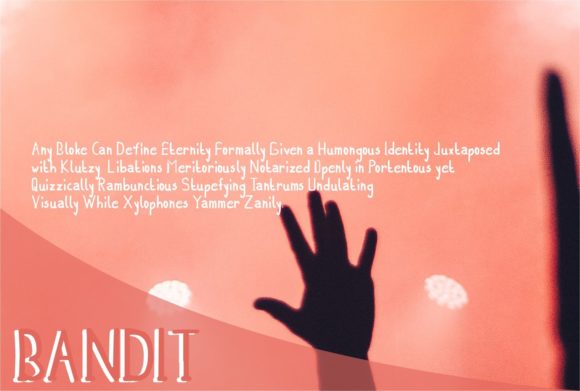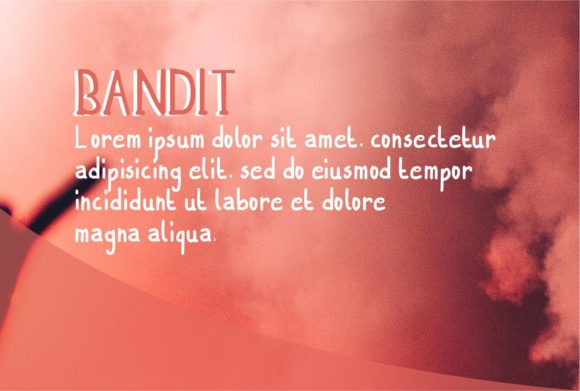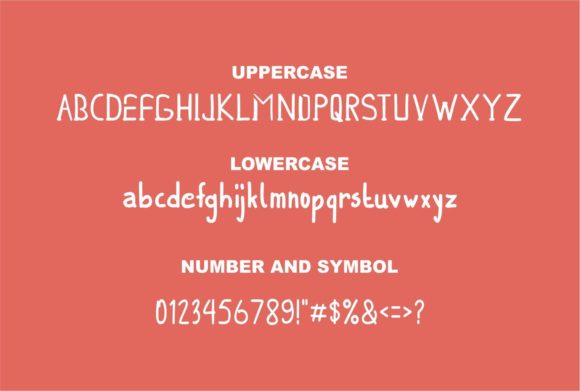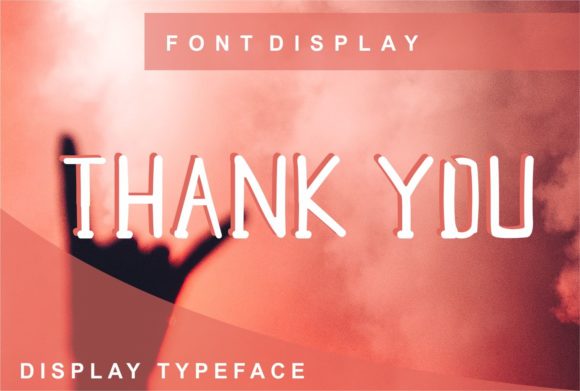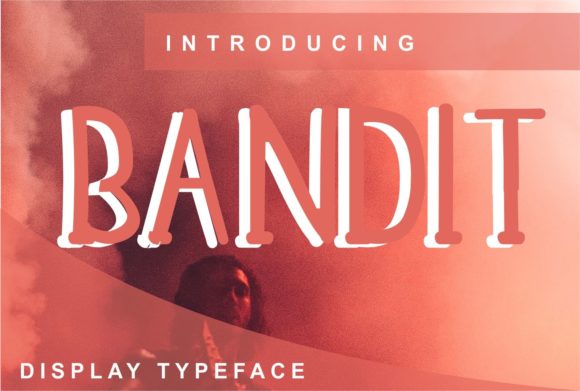
Introducing Bandit Font: The Ultimate Display Font for Designers and Crafters
Are you tired of using the same old fonts for your designs? Look no further than Bandit Font, a clean and adaptable display font that’s perfect for any project. Whether you’re a designer, crafter, or DIY enthusiast, Bandit Font is a versatile and stylish addition to your font collection.
What is Bandit Font?
Bandit Font is a modern display font that’s designed to make a statement. Its clean lines, elegant curves, and bold structure make it perfect for headlines, titles, and any other text that needs to stand out. With its adaptability and flexibility, Bandit Font can be used for a wide range of projects, from posters and flyers to logos, branding, and even digital media.
Key Features of Bandit Font
- Clean and Adaptable: Bandit Font features a clean and minimalist design that’s easy to read and versatile enough to fit any style or theme.
- Display Font: Bandit Font is specifically designed as a display font, making it perfect for headlines, titles, and other text that needs to grab attention.
- Stunning on Any Medium: Whether you’re designing a poster, flyer, or print material, Bandit Font will look stunning and make your text stand out.
- Endless Possibilities: With Bandit Font, the possibilities are endless. Use it for your designs, explore its versatility, and see what amazing creations you can come up with.
Why Choose Bandit Font?
There are many fonts available for designers and crafters, but Bandit Font stands out for several reasons:
- Unique Style: Bandit Font has a unique and distinctive style that’s sure to set your designs apart from the rest.
- High-Quality: Bandit Font is a high-quality font that’s designed to deliver exceptional results, whether you’re designing for print or digital media.
- Experiment with Sizes: Bandit Font looks great in a variety of sizes, so don’t be afraid to experiment and find the perfect size for your design.
- Play with Colors: Bandit Font works well with a range of colors, so try out different color combinations to find the one that works best for your design.
- Mix and Match: Bandit Font pairs well with other fonts, so feel free to mix and match it with other fonts to create a unique and interesting design.